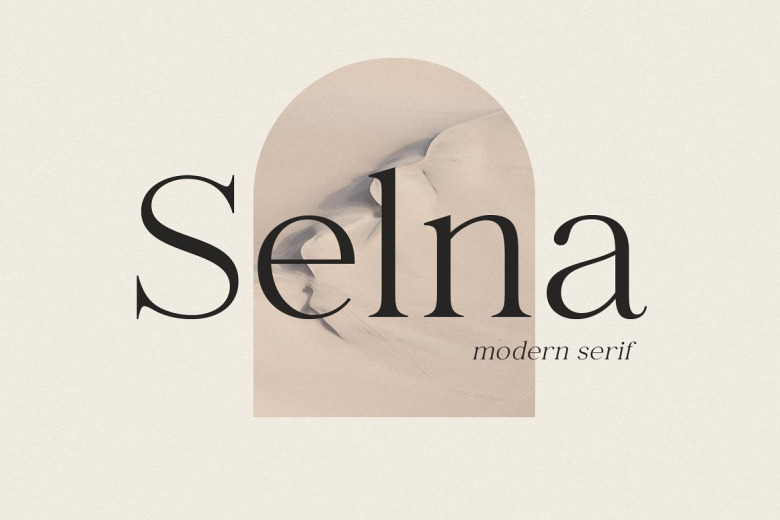
Selna Font
Selna is a modern, elegant serif font with Infinite weight, it has four typefaces disc type, outline, oblique and outline oblique. It is a slim typeface that is beautiful to use in your projects and works perfectly with text – very readable and recognizable for text captions. Included in this fonts type alternates for Uppercase and Lowercase, to make your project even more unique and elegant with this flusa style adding dynamics to your design. It’s easily use. OpenType features. Great for wedding invitations, branding, business cards, arranging weddings, logos, packaging, titles and much longer, or text.
Selna Serif Font